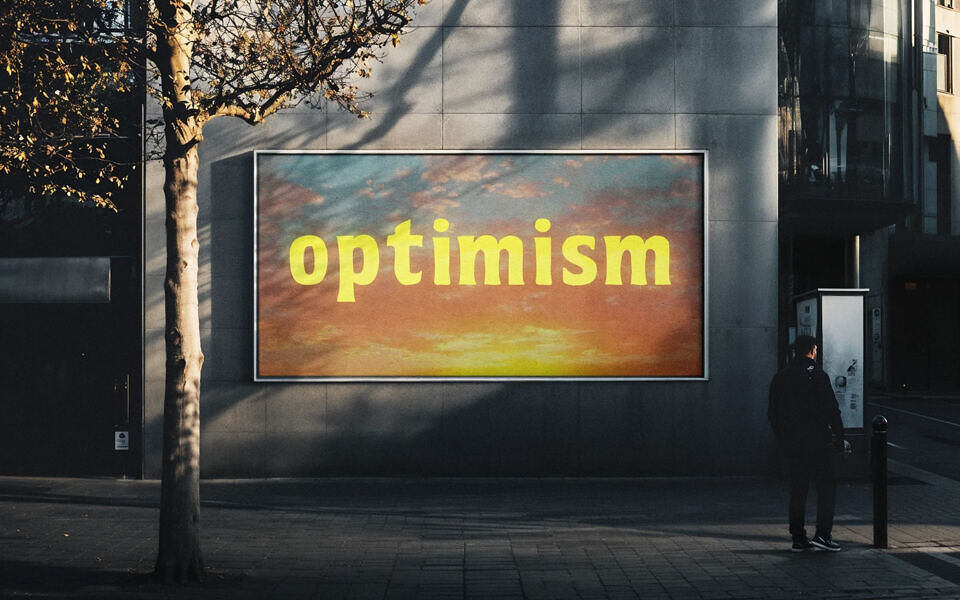
Joy is a free playful and warm typeface designed to convey positivity and spontaneity. Its soft, slightly irregular curves give it a handcrafted, human feel while remaining modern and easy to read. Simple yet expressive, it brings a sense of creativity and optimism to any project.
With its generous shapes and lively rhythm, Joy works perfectly for eye-catching titles as well as fun compositions. It’s an ideal choice for creative publishing, posters, packaging, or digital projects that want to radiate energy and happiness.